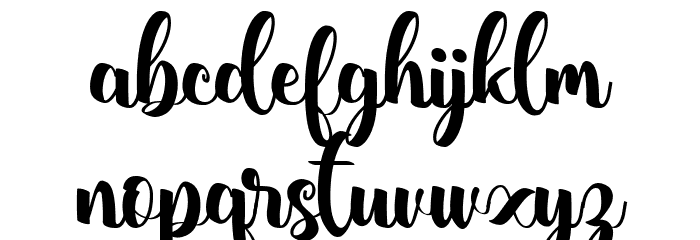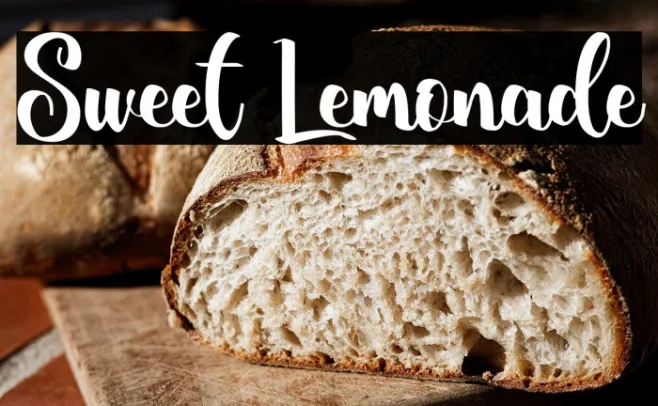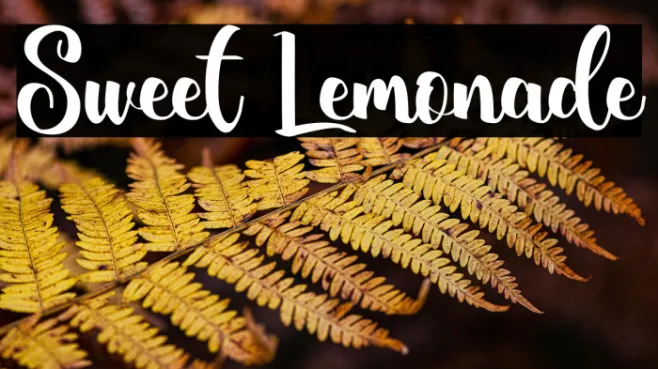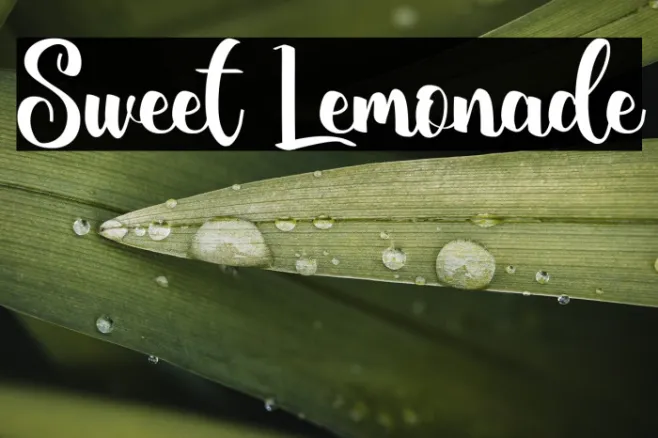
Sweet Lemonade Font
This font features a playful and whimsical script style, characterized by its flowing, cursive letterforms. The uppercase letters are bold and dynamic, with a slight slant that adds a sense of movement and energy. The lowercase letters maintain a consistent style, with rounded edges and smooth curves that enhance its friendly and approachable appearance. The numerals are clear and legible, matching the overall aesthetic with their rounded and slightly exaggerated forms. This font is ideal for projects that require a touch of elegance and creativity, making it suitable for invitations, greeting cards, and branding materials.
A playful and whimsical script font with flowing, cursive letterforms.
- Proposed Projects: Ideal for invitations, greeting cards, branding materials, and creative projects.